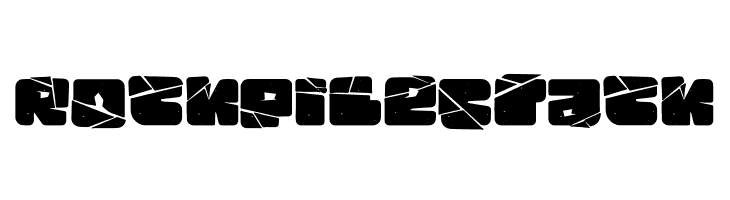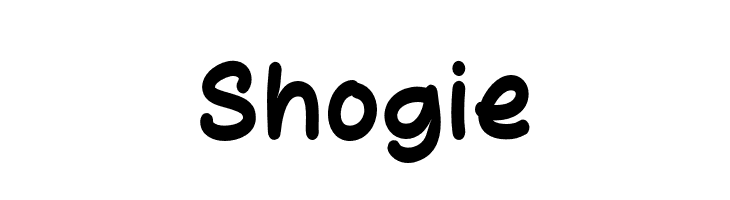
A fluid, elegant script font with a natural handwritten style.
A fluid and elegant script font with a handwritten feel.
A modern, elegant handwritten font with fluid, cursive strokes.
A slanted, elegant script font with interconnected letters and a handwritten feel.
A playful, handwritten font with bold, rounded strokes and a casual, friendly appearance.
A bold, elegant script font with intricate loops and flourishes.
A casual, hand-drawn marker-style font with a creative and authentic feel.
A playful, hand-drawn font with tall, narrow characters and a whimsical charm.
A decorative script font with elegant swashes and high contrast strokes.
A decorative script font with flowing, interconnected letterforms and intricate swashes.
A playful, narrow font with a hand-drawn, whimsical style.
A bold, geometric monospaced font with a modern, industrial aesthetic.
A whimsical, Halloween-themed decorative font with spooky elements.
A flowing, elegant script font with ornate details and smooth connections.
A classic serif font with elegant curves and a calligraphic touch.
A bold serif font with high contrast and a classic yet modern style.
A semi-bold serif font with elegant curves and classic style.
An elegant, medieval-inspired serif font with sharp, angular serifs and decorative elements.
A tall, narrow font with strong vertical emphasis and uniform strokes.
A modern, sleek font with tall, narrow characters and a minimalist design.
A modern yet classic font with elegant curves and bold strokes.
A modern serif font with clean lines and elegant curves.
A fluid and expressive handwritten style with a personal touch.
A decorative font with intricate geometric patterns and bold strokes.
A bold, geometric font with angular, interlocking patterns.
A bold, geometric font with a futuristic and digital aesthetic.
A bold, graffiti-inspired font with sharp, jagged edges and dynamic forms.
A bold, pixelated font inspired by classic 8-bit video games.
A playful and whimsical font with charming symbols and rounded characters.